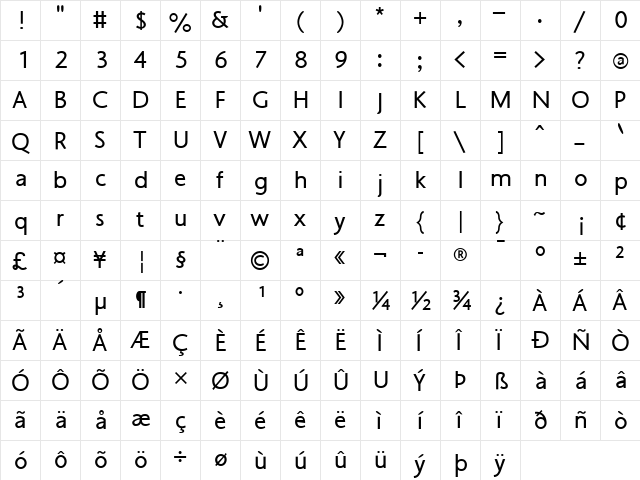
OskiDakelh Regular
| Designer | Chris Harvey |
Design Context for OskiDakelh Typeface
OskiDakelh takes a measured approach to typography — its balanced proportions and neutral character make it a reliable workhorse for both digital and print work.